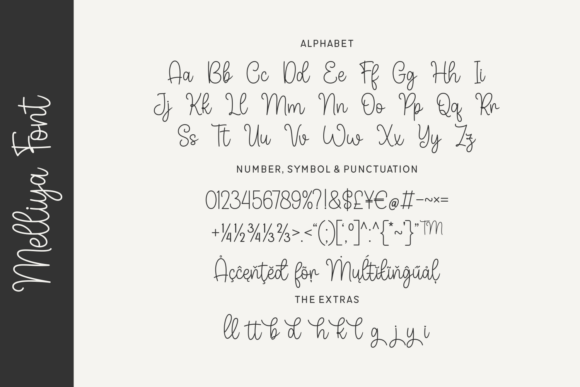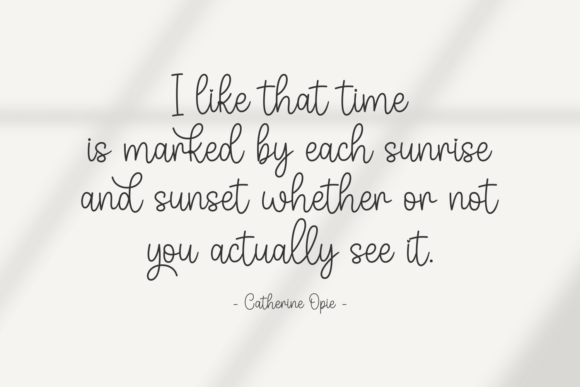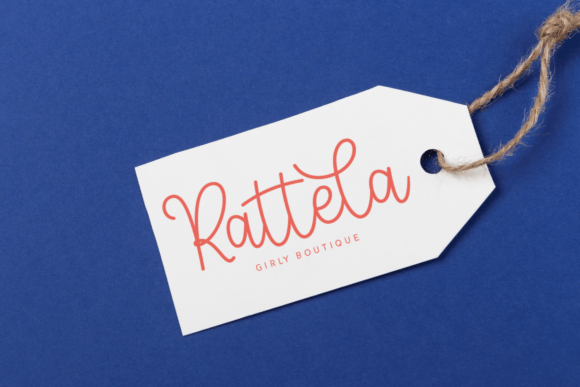
Introduction to Melliya Font
As a designer, there’s nothing quite like the thrill of starting a new creative project. The blank canvas, the endless possibilities, the rush of bringing an idea to life. But sometimes, it’s the smallest details that can make all the difference. A well-chosen font can elevate an entire design, giving it a unique personality and style. That’s where Melliya Font comes in – a stunning script font that’s sure to capture the essence of your next design project.
With its smooth, flowing lines and connected letters, Melliya Font adds a touch of elegance and sophistication to any design. Whether you’re working on a logo, invitation, or social media graphic, this versatile font is the perfect choice. And the best part? It’s available for free download, making it an invaluable resource for designers of all levels.
Whether you’re looking to add a personal touch to your design or simply want to explore new creative possibilities, Melliya Font is an essential download for any design enthusiast. With its high-quality design and transparent background, this font is sure to become a go-to resource for all your future design projects.
Key Features of Melliya Font
- Designed with a modern aesthetic, Melliya Font is perfect for contemporary design projects requiring a sleek and sophisticated look.
- Unique characteristics include a clean and minimalist design, making it an excellent choice for branding, logos, and digital signage.
Honest Review: Melliya Font
I recently stumbled upon the Melliya Font while searching for a design resource to enhance a creative project. I was impressed by the clean and elegant design of this font.
Here are some aspects that work well: ✨
- High quality design that looks professional
Overall, I’m quite impressed with the Melliya Font. It’s a great addition to any design project, and its high quality design makes it a valuable resource for designers. I would recommend it to anyone looking for a clean and elegant font.
Tips for Getting the Most Out of Melliya Font
For the best results, use Melliya Font with a transparent background to create a seamless design. Experiment with different font sizes and styles to add visual interest to your design. You can also combine Melliya Font with other design elements to create a unique look.
Melliya Font is perfect for creative projects that require a high-quality, elegant font. Use it for invitations, business cards, or any design where you want to add a touch of sophistication. With Melliya Font, you can create a professional and stylish design that stands out from the crowd.